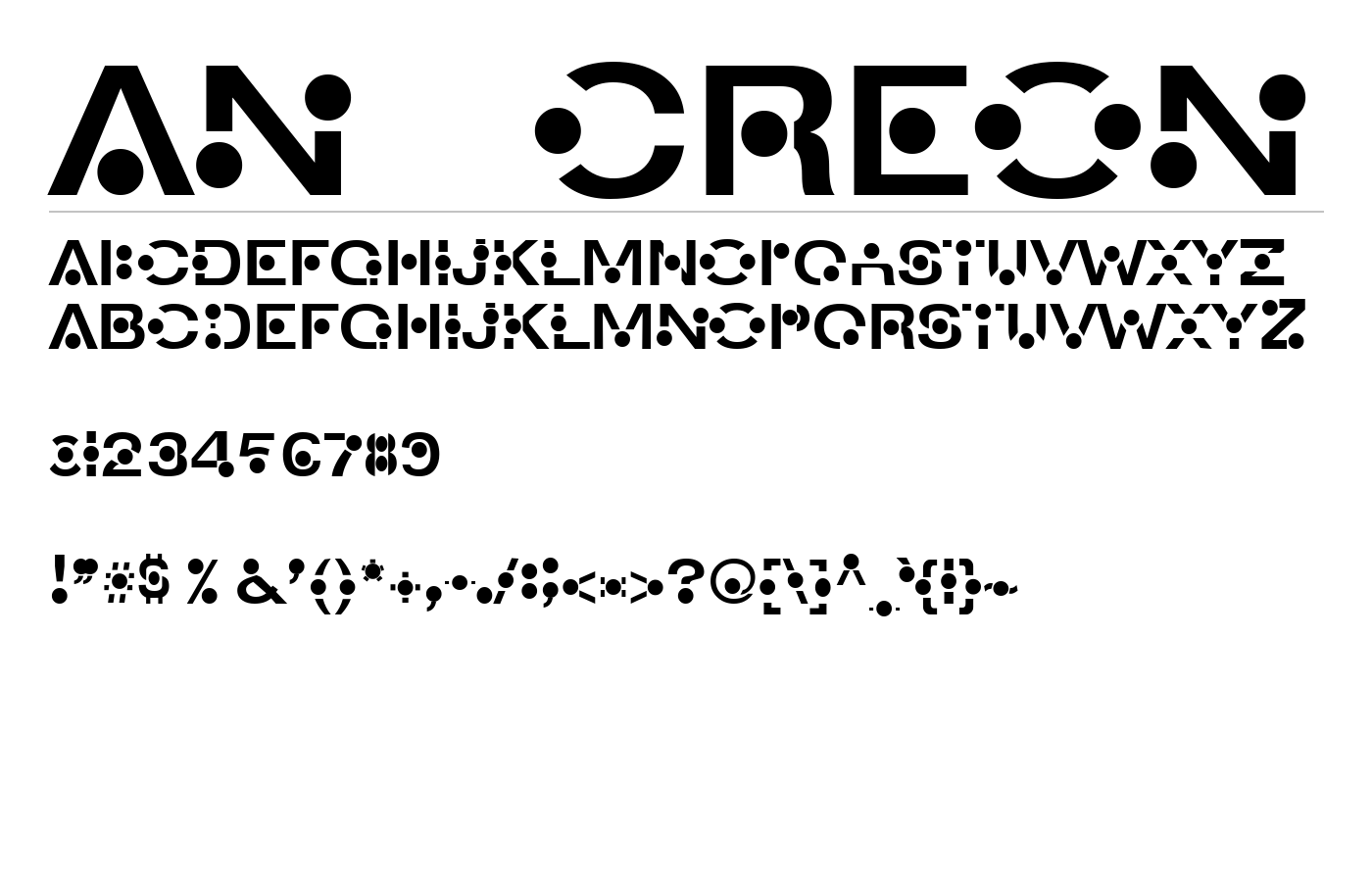
An Creon is a bold, geometric sans serif font with a futuristic and experimental vibe, characterized by its use of circular dots integrated into the letterforms. Its sharp, clean lines combined with high contrast shapes and unique punctuated details make it ideal for standout headlines, modern branding, and creative design projects that require a distinctive, avant-garde look. This font works best in display use where its striking style can capture attention and convey innovation and modernity.
An Creon Font